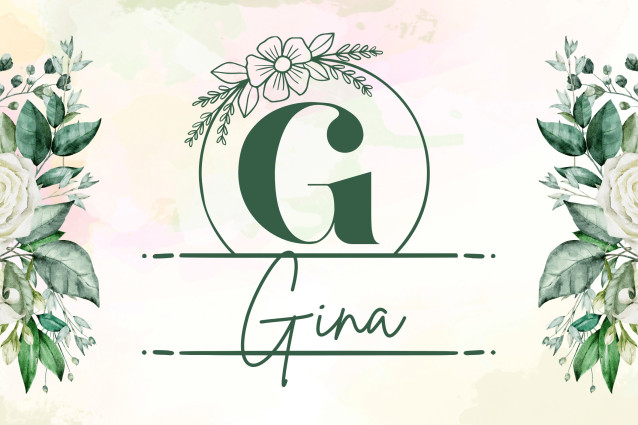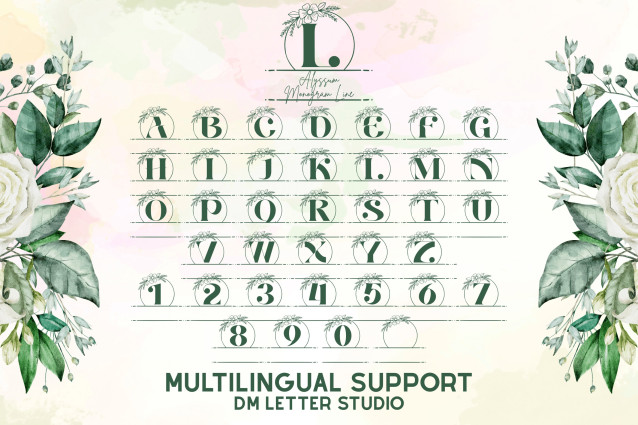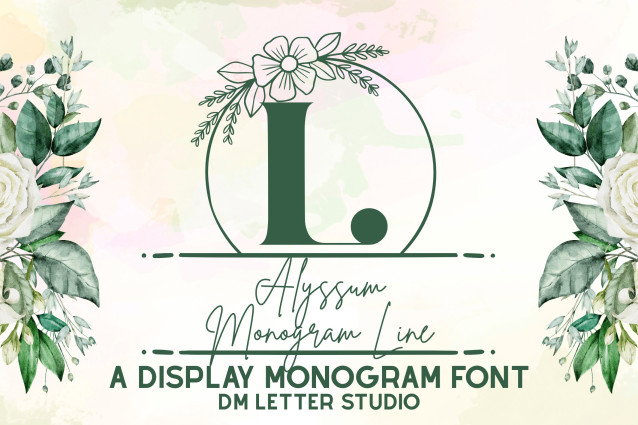
Alyssum Line Monogram Font
Alyssum Line Monogram is a delicate and minimalistic monogram font that blends the simplicity of fine lines with the beauty of floral elegance. Each character is thoughtfully framed in a clean linear style and decorated with graceful alyssum-inspired flourishes. It’s perfect for refined branding, wedding materials, luxury packaging, feminine logos, and spring-themed design work.